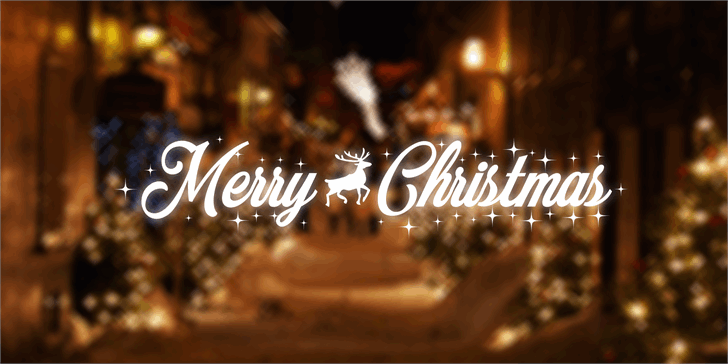
Free Merry Christmas Font
Free merry christmas font for graphic designers that need to present their work in a professional way. Font Space has created this amazing and beautiful free font. This is absolutely fancy font so you can easily make world-class designs.